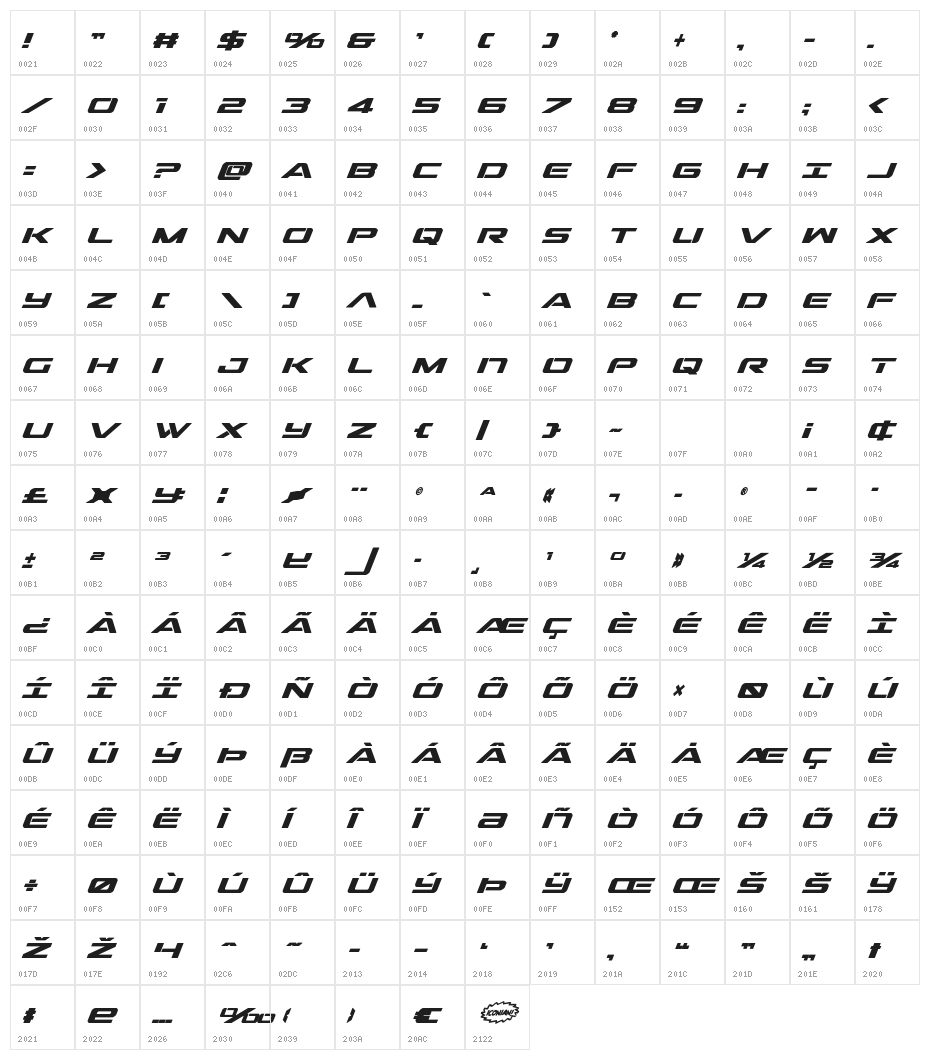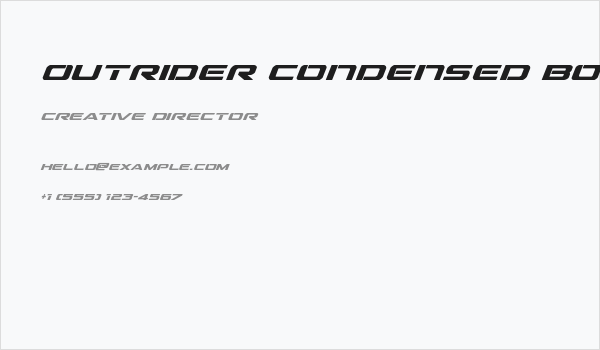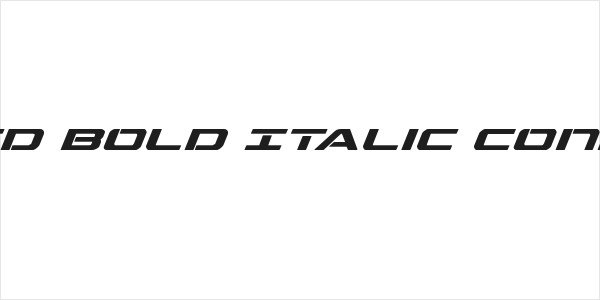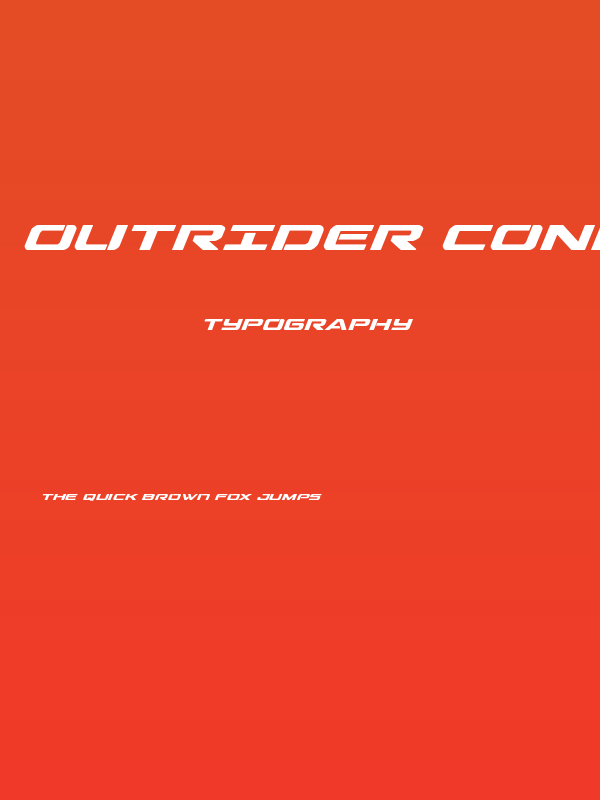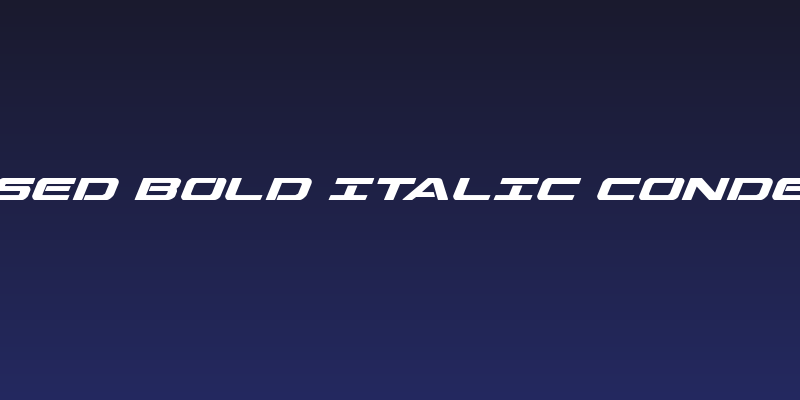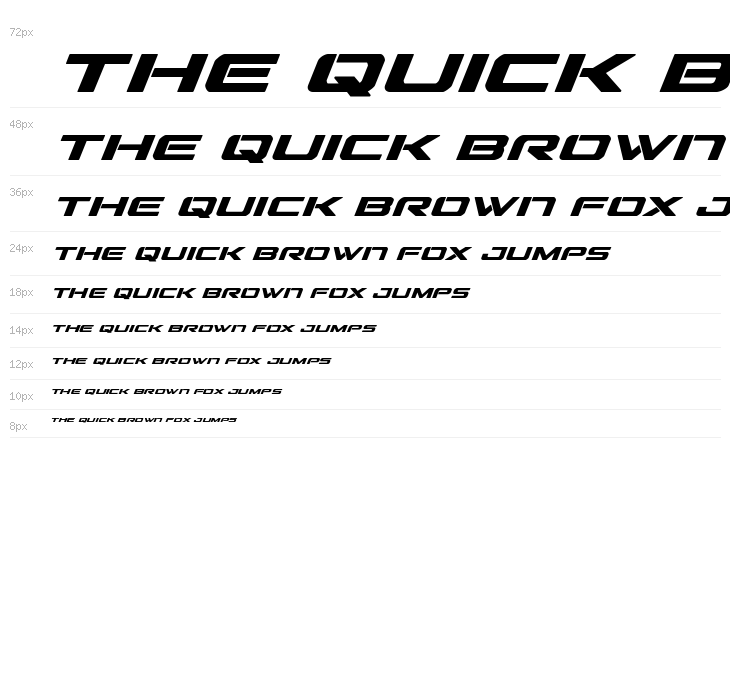
Outrider Condensed Bold Italic Font
Outrider Condensed Bold Italic Description
This font features a bold and italic style with a condensed width, giving it a dynamic and modern appearance. The characters are sharply angled, providing a sense of motion and speed. The uppercase letters are particularly striking, with a futuristic design that is both sleek and aggressive. The lowercase letters maintain the same boldness and angularity, ensuring consistency across the typeface. Numbers are equally bold and italicized, making them stand out effectively. Special characters are designed to match the overall aesthetic, with a strong presence and clear legibility. This font is ideal for projects that require a bold statement and a modern, edgy look.
Use CaseHeadlines, Logos, Branding
Proposed ProjectsIdeal for sports branding, automotive designs, tech-related projects, and dynamic advertising.